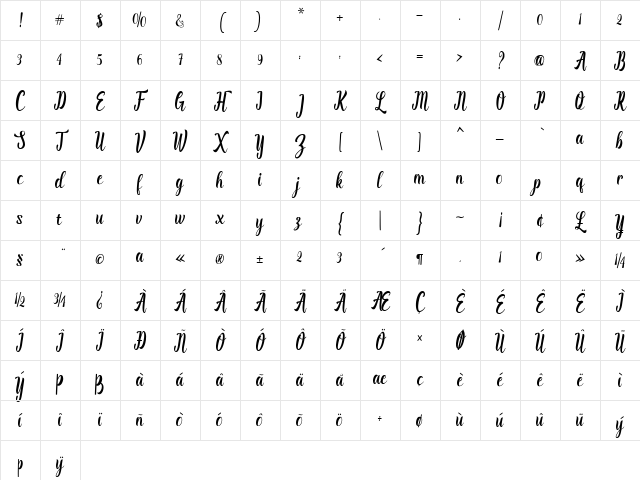
Bakin Regular Free Font
Bakin Regular
Foundry: Rama type
Designer: Ramaziana
Design Context for Bakin
Bakin is a composed and adaptable typeface that performs quietly and consistently across a wide range of design contexts.